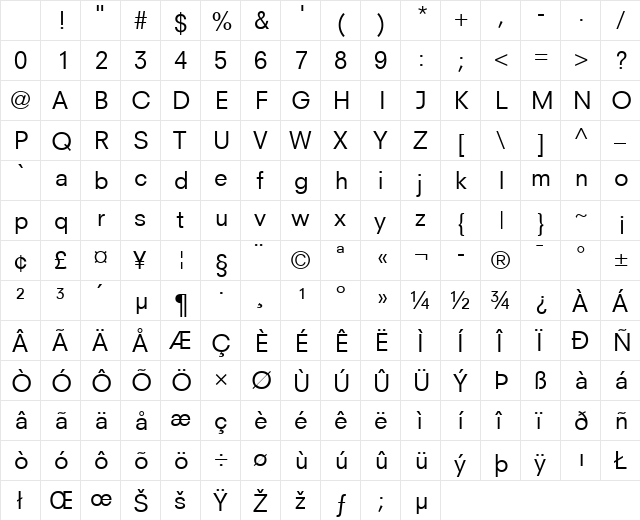
NeuzeitS LT Book Regular
Design Context for NeuzeitS LT Book
NeuzeitS LT Book is a composed and adaptable typeface that performs quietly and consistently across a wide range of design contexts. Its slender proportions lend an understated elegance to any composition.